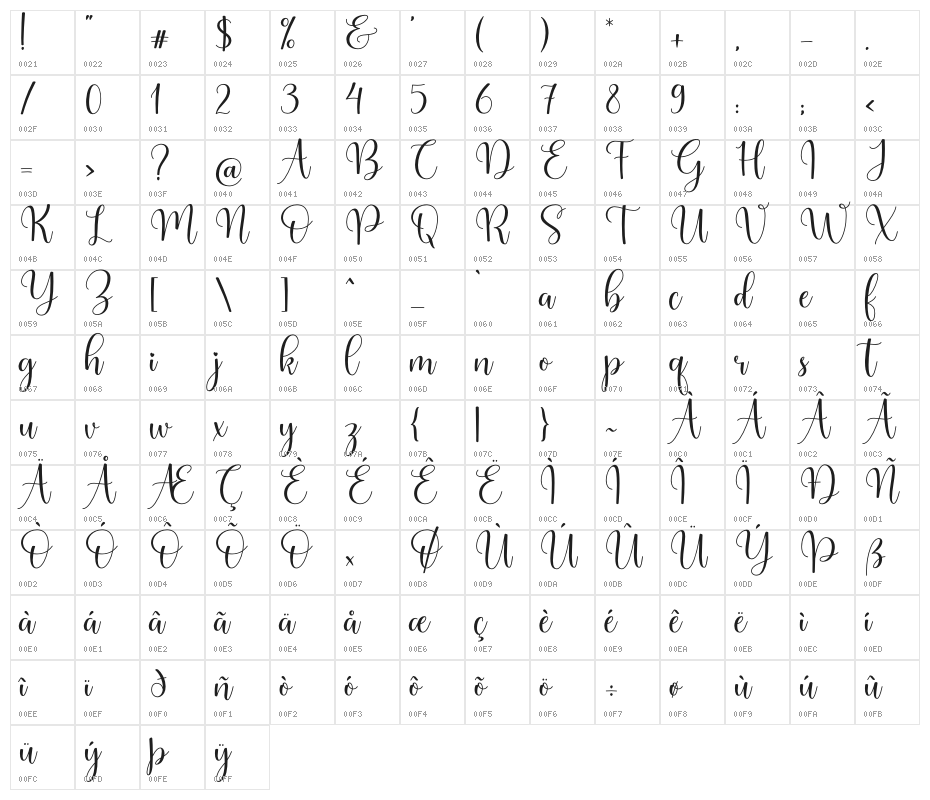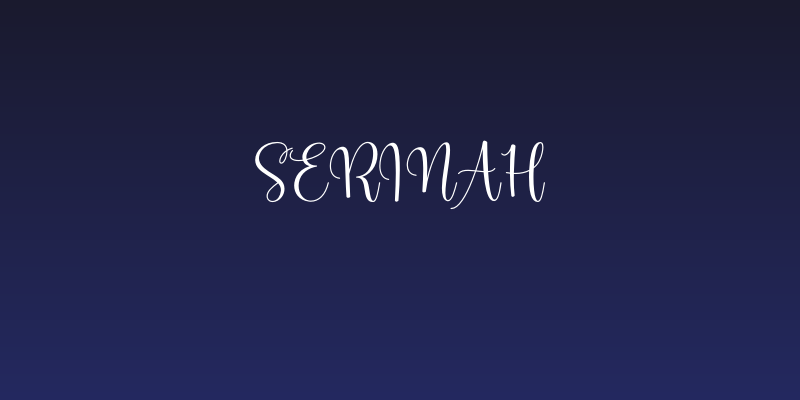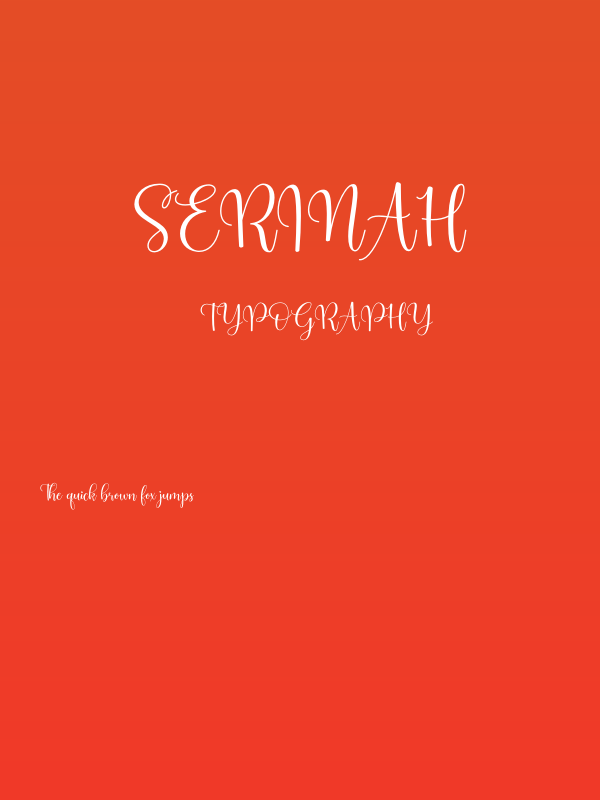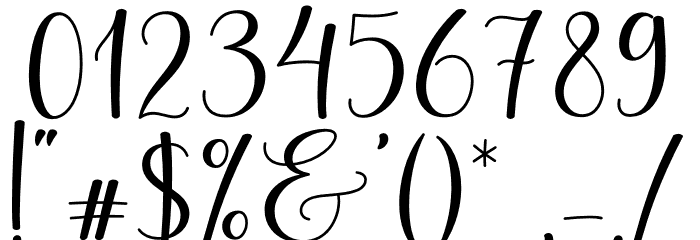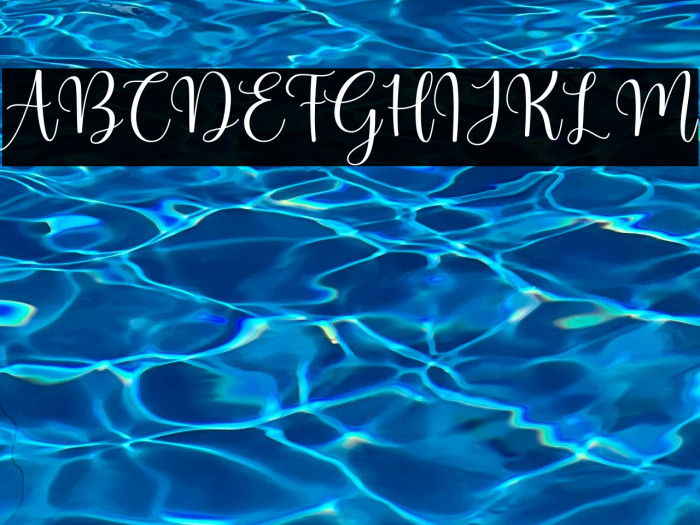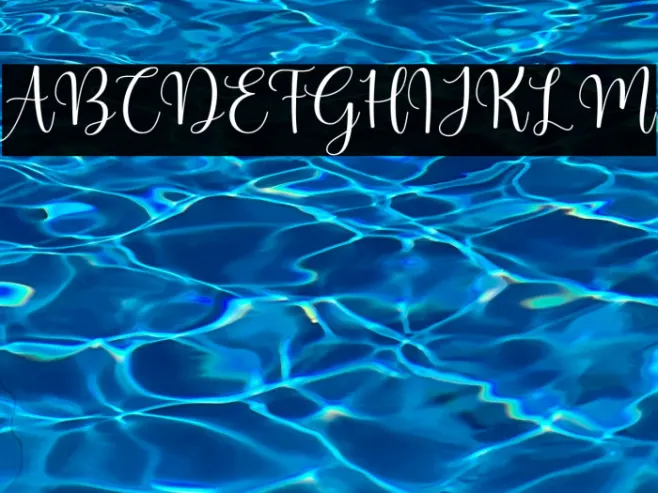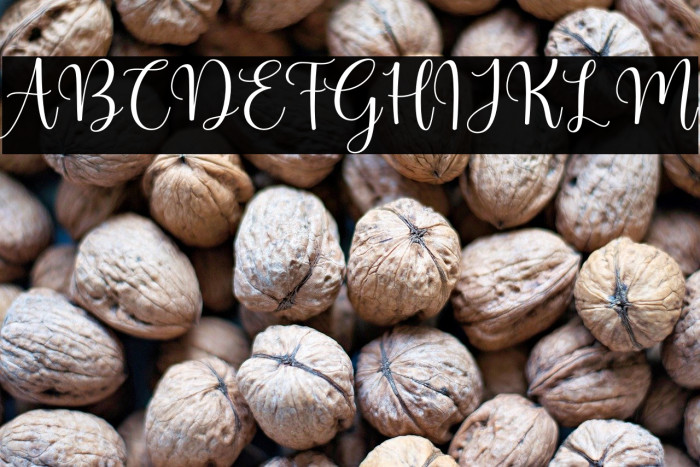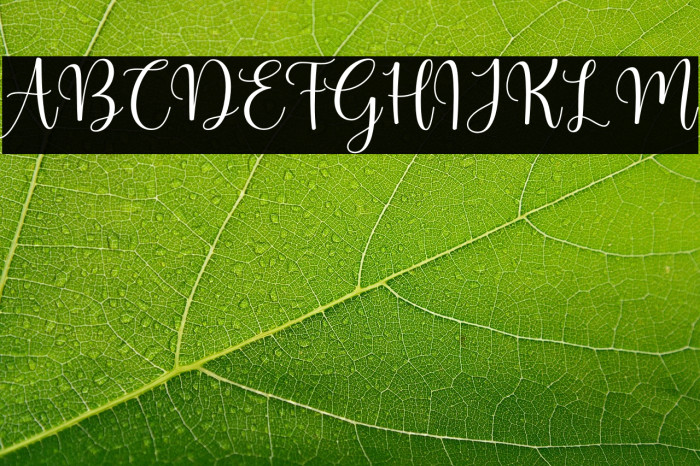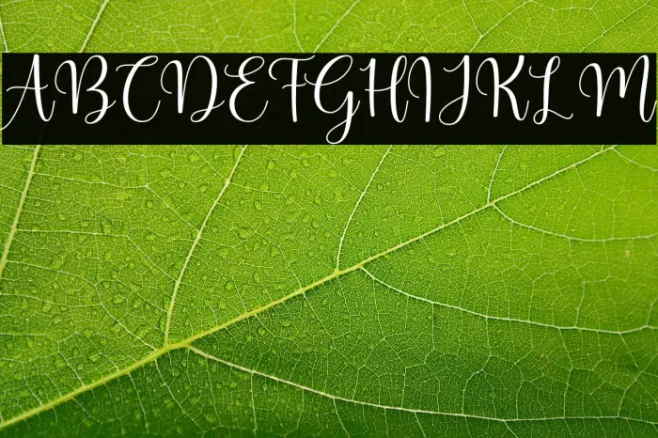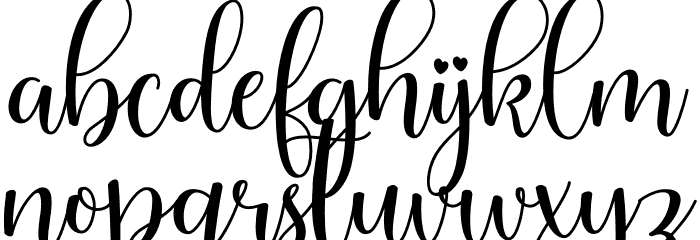
Serinah Font
Serinah Description
This font features an elegant, flowing script style that combines both uppercase and lowercase letters with a distinct flair. The characters are interconnected with smooth, sweeping curves, giving it a handwritten appearance. The uppercase letters are slightly more restrained, while the lowercase letters exhibit more elaborate loops and swashes. The numerals maintain the same graceful style, ensuring consistency throughout. Special characters are also designed with the same attention to detail, making this font versatile for various applications.